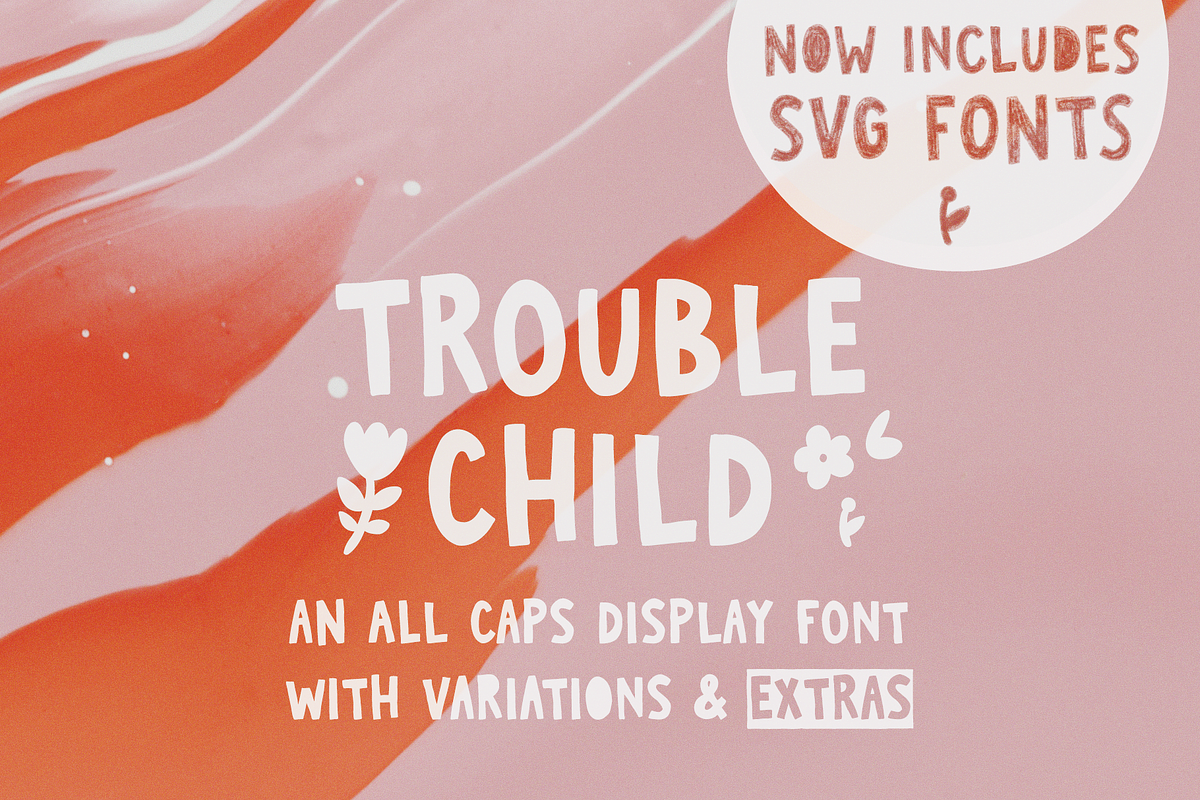
Trouble Child display SVG font Free Download
Add bold personality to your designs with Trouble Child Display SVG Font Free Download, a gritty and expressive typeface perfect for eye-catching visuals. You need to purchase this font for commercial use. However, you can test it in personal or non-commercial projects using Trouble Child Display SVG Font Free Download. With hand-painted textures and high-impact letterforms, this font is ideal for posters, album covers, branding, and edgy digital artwork. Its SVG format brings extra detail and authenticity, giving your designs a raw, artistic edge. Try Trouble Child Display SVG Font Free Download today and bring intense character and energy to your creative projects.